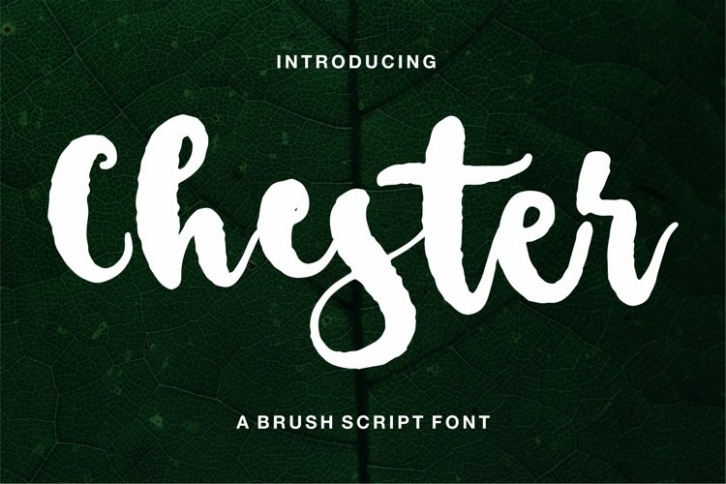
Chester is a beautiful font that was designed by plusstore. It's a great choice for designers and creatives who need such a font. It was released on November 19, 2021 and the file size is 9.99 MB. Chester may give a more youthful, expressive and casual look to your project. It is a very beautiful, refined, elegant, and high-quality font.